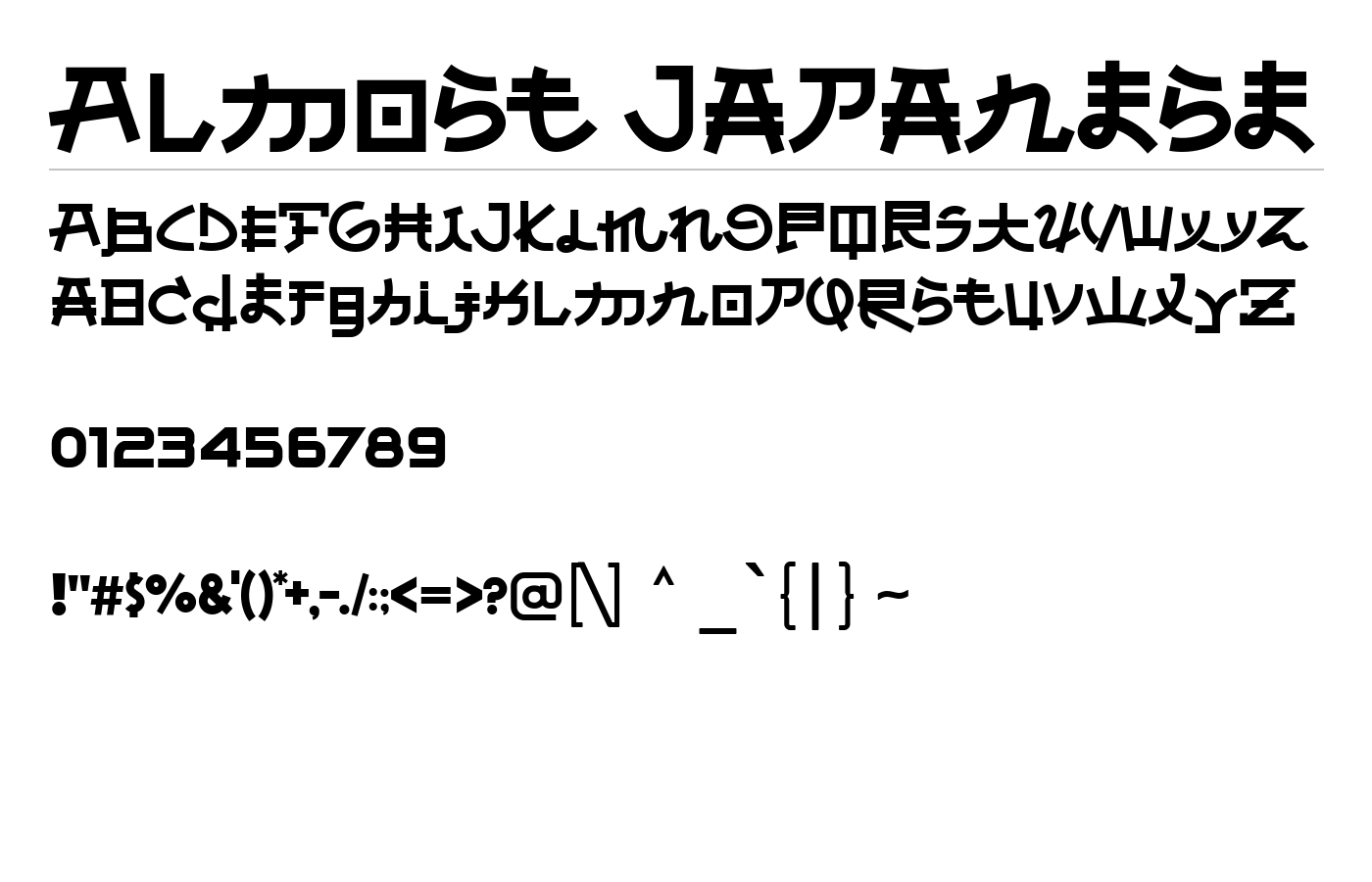
Almost Japanese Font is a bold, condensed sans serif with a distinct geometric and calligraphic touch that mimics the visual style of Japanese characters. Its strong, sharp strokes and playful letterforms create a unique, modern personality perfect for eye-catching headlines, posters, and branding that seek an energetic yet cultural flair. This font works well where a bold, quirky look is desired to convey creativity and distinctiveness.
Almost Japanese Font
About Almost Japanese Font